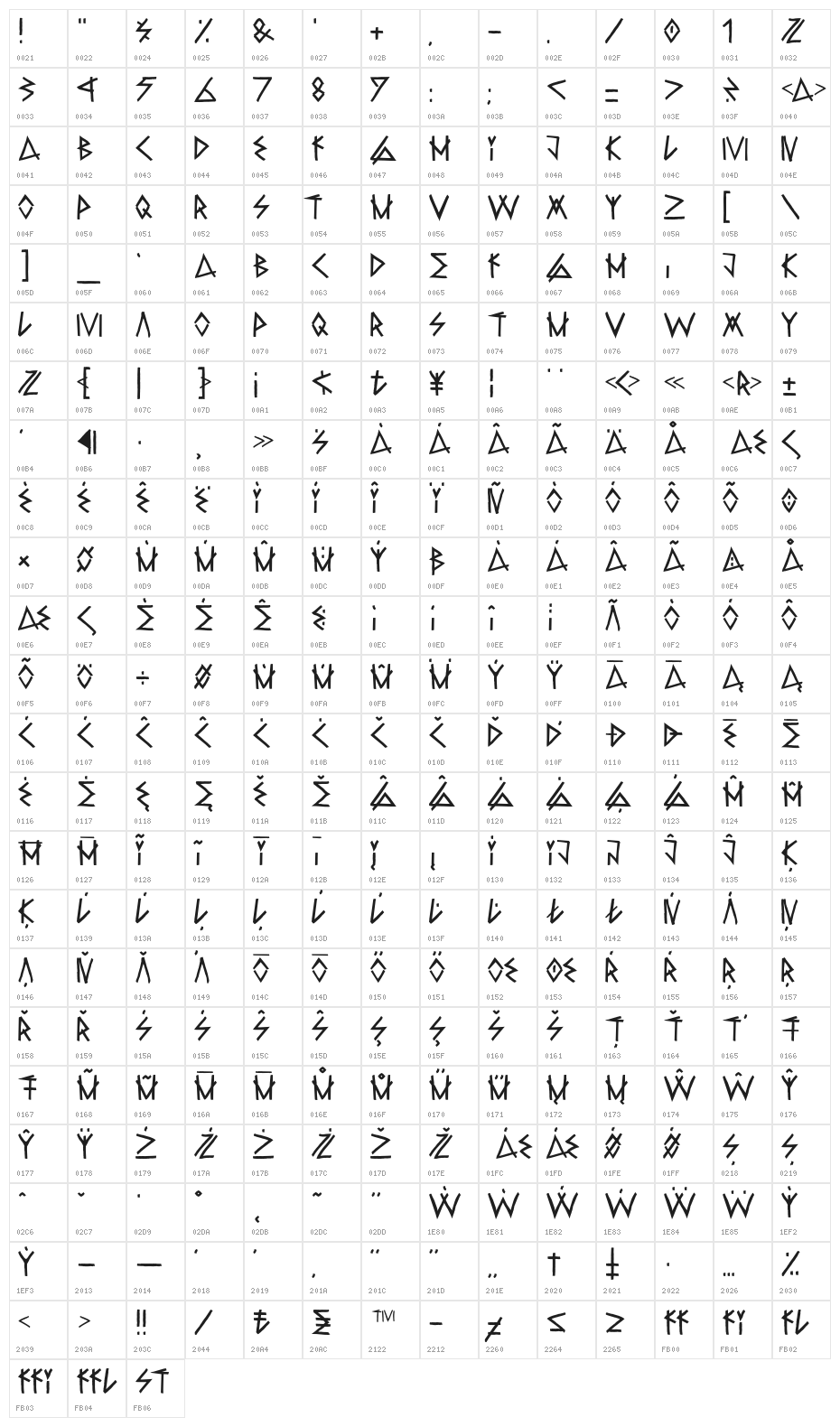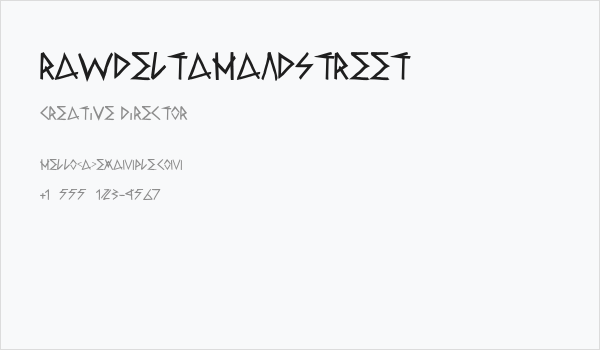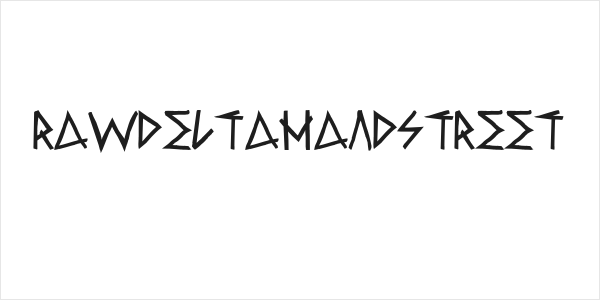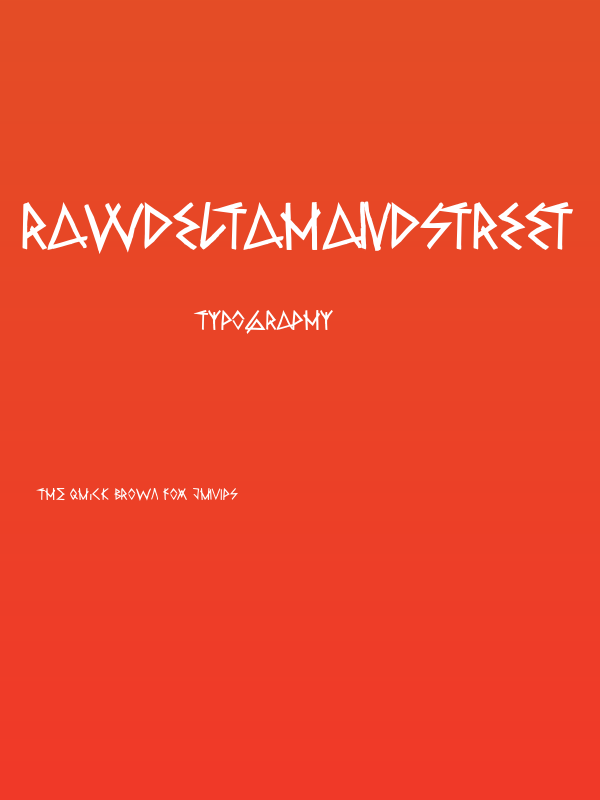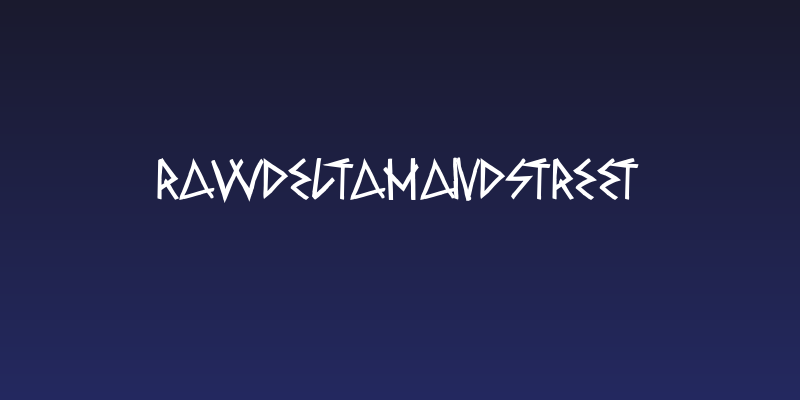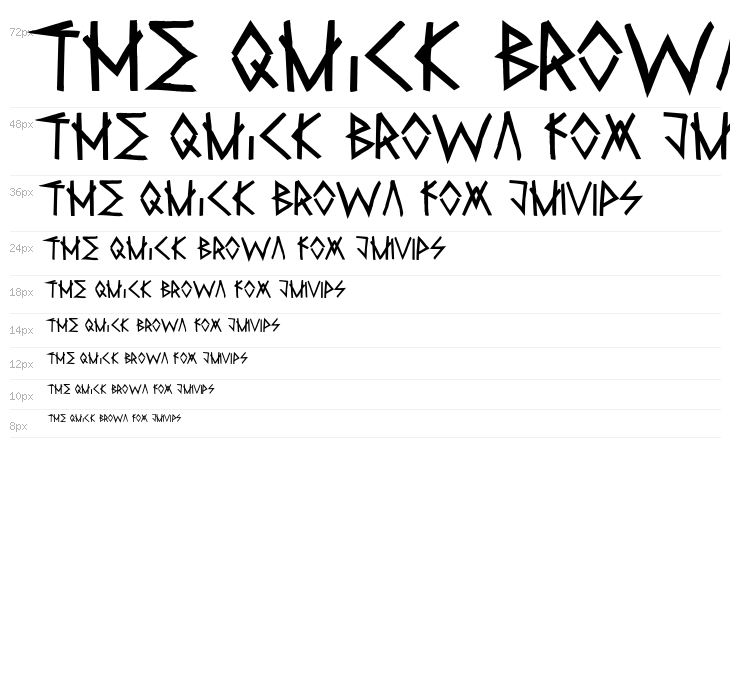
RawDeltaHandStreet Font
RawDeltaHandStreet Description
This font exhibits a bold, angular style reminiscent of graffiti or street art. The characters are constructed with sharp, jagged lines that give a sense of movement and energy. Each letter is uniquely stylized, with varying angles and line thicknesses that create a dynamic and edgy appearance. The uppercase and lowercase letters maintain a consistent theme, while the numerals and special characters integrate seamlessly into the overall design. This font's distinctive look makes it ideal for projects that require a modern, rebellious, or urban aesthetic.
| Overall Style | Modern, Urban, Edgy |
| Use Case | Logos, Posters, Branding |
| Proposed Projects | Ideal for streetwear branding, album covers, skateboarding graphics, or urban-themed posters. |